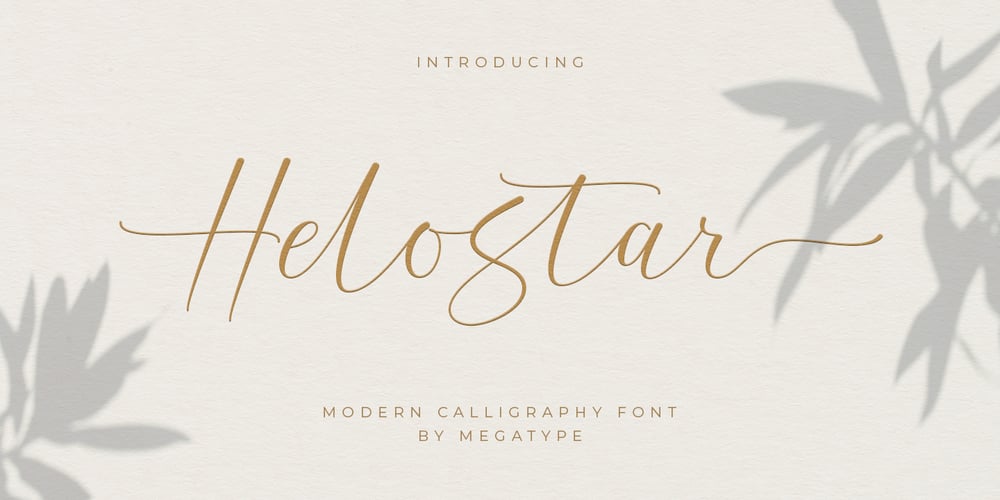
Helostar Script Font Family was designed by M Akmal and published by Mega Type. Helostar Script contains 1 styles and family package options. Helostar Script is a modern calligraphy font that features a varying baseline, smooth lines, a classic and elegant touch. Can be used for various purposes such as headings, signature, logos, wedding invitation, t-shirt, letterhead, signage, labels, news, posters, badges etc. Helostar Script features 400+ glyphs characters. Including 150+ ligatures, alternates and multiple language support. It has OpenType stylistic alternates, ligatures and International support for most Western Languages. To enable the OpenType Stylistic alternates, you need a program that supports OpenType features such as Adobe Illustrator CS, Adobe Indesign & CorelDraw X6-X7, Microsoft Word 2010 or later versions. How to access all alternative characters using Adobe Illustrator: https://www.youtube.com/watch?v=XzwjMkbB-wQ Helostar Script is coded with PUA Unicode, which allows full access to all the extra characters without having special designing software. Mac users can use Font Book , and Windows users can use Character Map to view and copy any of the extra characters to paste into your favorite text editor/app. How to access all alternative characters, using Windows Character Map with Photoshop: https://www.youtube.com/watch?v=Go9vacoYmBw If you have any question, don’t hesitate to contact me by email : megatype04@gmail.com Thanks so much for looking and enjoy it!